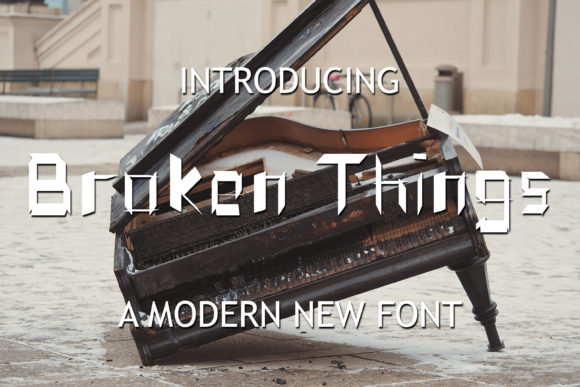
The Designer’s Delight: Broken Things Font
I’ll never forget the time I was working on a project for a client who wanted a bold, edgy look. I had spent hours browsing through font libraries, but nothing seemed quite right. That’s when I stumbled upon Broken Things, a squared lettered and cool looking display font that instantly caught my eye. It was like the design gods had finally answered my prayers! ✨
Broken Things has been a game-changer for my design workflow, and I’m excited to share my experience with you. In this article, we’ll dive into the world of Broken Things, exploring its features, how to use it, and some similar fonts you might love.
- 💥 **Bold and Edgy**: Broken Things has a unique, rugged charm that’s perfect for making a statement.
- ✅ **Versatile**: Whether you’re designing a logo, poster, or social media graphic, this font adapts seamlessly.
- ✨ **High-Quality**: The font is well-crafted, with crisp lines and a professional finish.
While Broken Things is an excellent font, there are a few things to keep in mind: 🤔
- ⚠️ **Limited Use in Body Text**: Due to its bold and edgy nature, Broken Things might not be the best choice for lengthy body text. It’s perfect for headings, titles, or short phrases, but may be overwhelming for larger blocks of text.
- ⚠️ **Some Letter Combinations**: Occasionally, certain letter combinations might not look perfect, but this is relatively rare and usually easily fixable with a little creative adjustment.
Broken Things was designed with the intention of creating a bold, attention-grabbing font that’s both versatile and fun. The designer aimed to craft a font that could be used for a wide range of projects, from logos and posters to social media graphics and more. The result is a font that’s both rugged and refined, perfect for adding a touch of personality to your designs.
Q: What type of projects is Broken Things best suited for?
A: Broken Things is perfect for projects that require a bold, edgy look, such as logos, posters, social media graphics, and more.
Q: Is Broken Things a difficult font to read?
A: While Broken Things is a bold font, it’s still relatively easy to read, especially in short phrases or headings. However, it may not be the best choice for lengthy body text.